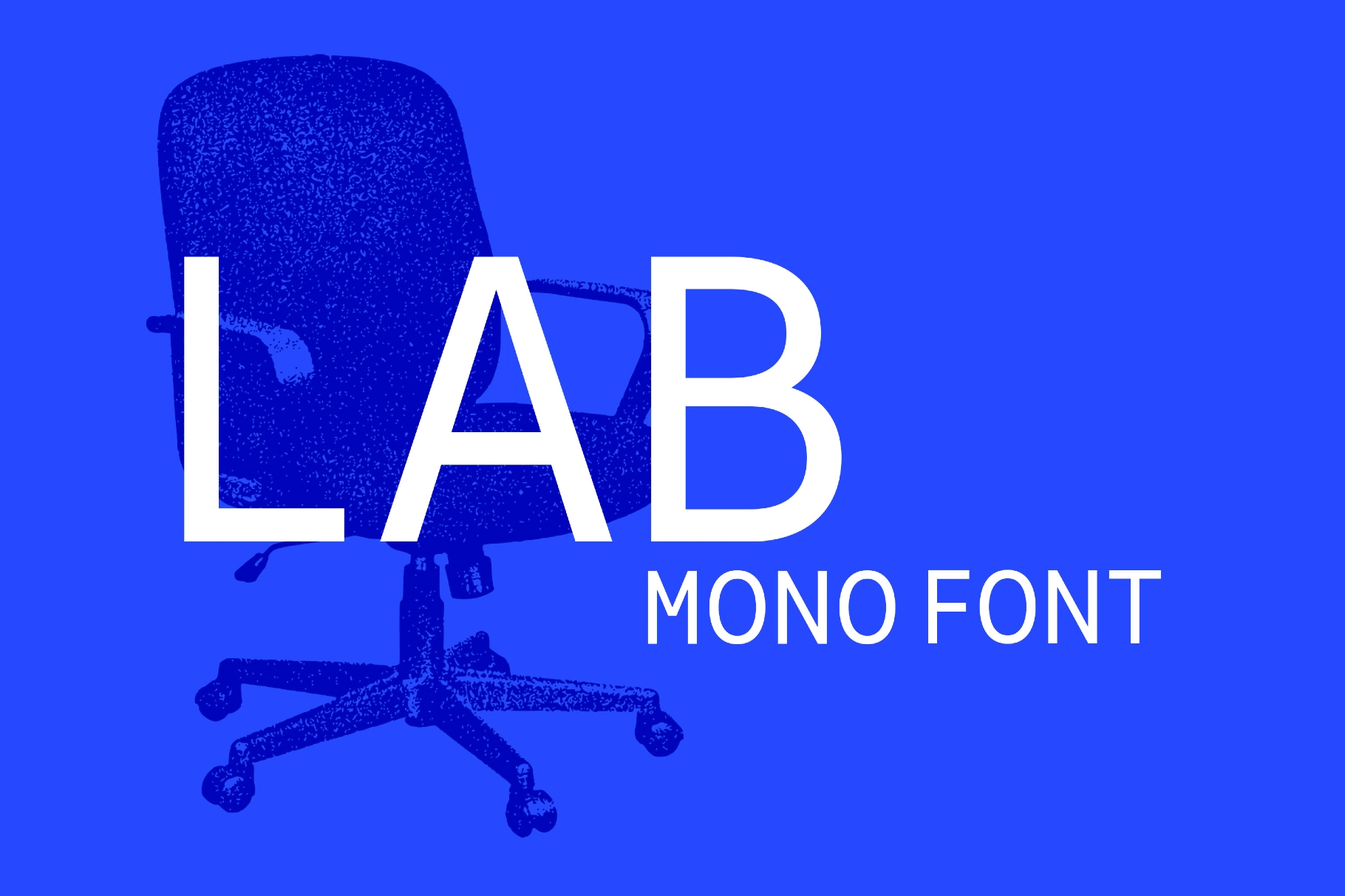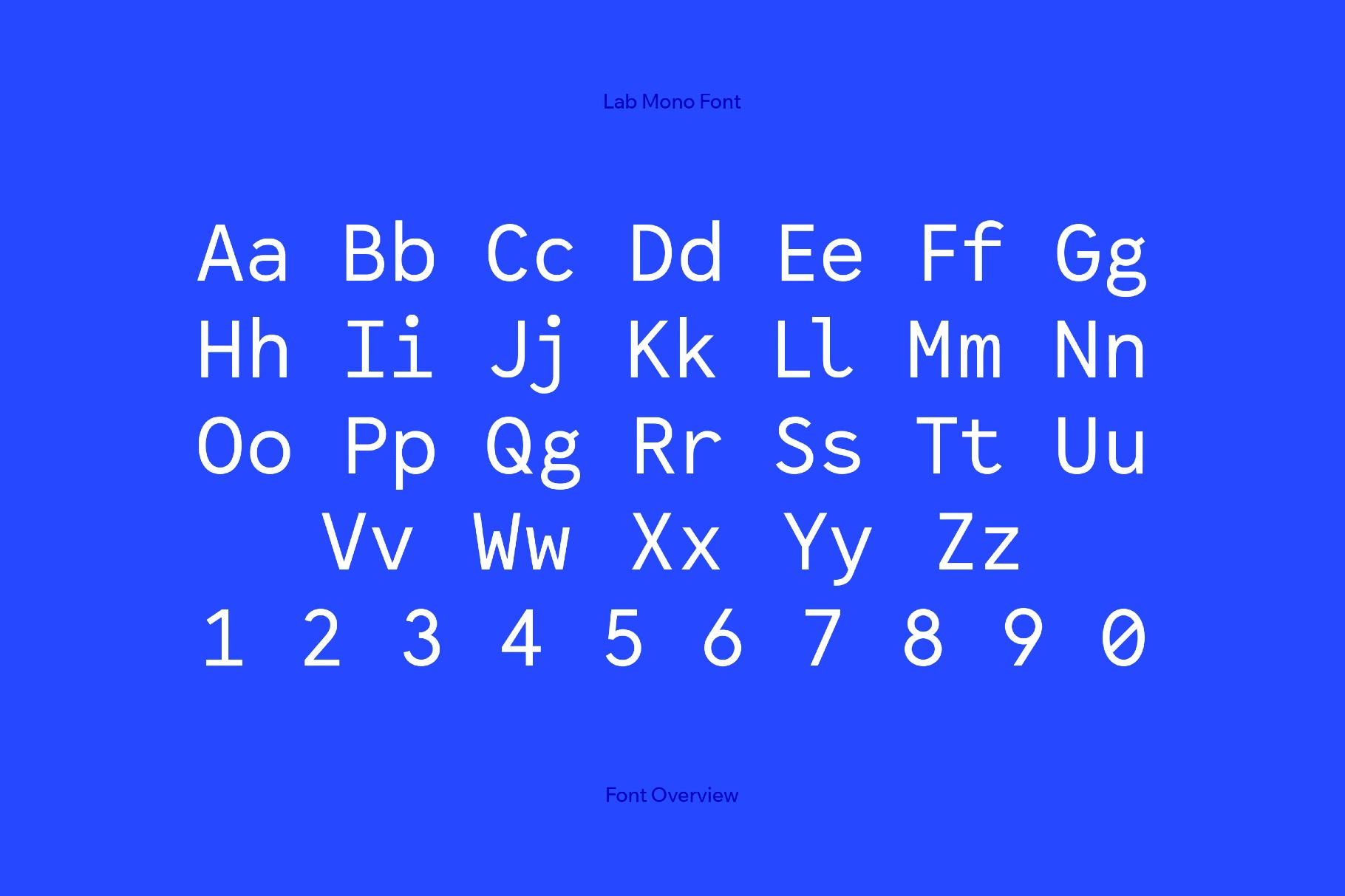
Lab Mono Font
Lab Mono has strict construction and a clean, assertive minimal tone. Its geometry is soft-edged, its counters wide, and its rhythm steady — each character lands with that precise, measured spacing you’d expect from technical notes. Minimal stroke contrast and rounded joints keep it readable over long stretches of text.
Suited for logotypes, headlines, code snippets, terminal themes, technical documentation, API references, dashboards and data tables, editorial infographics, product spec sheets, posters for tech events, and captions in tutorial videos.